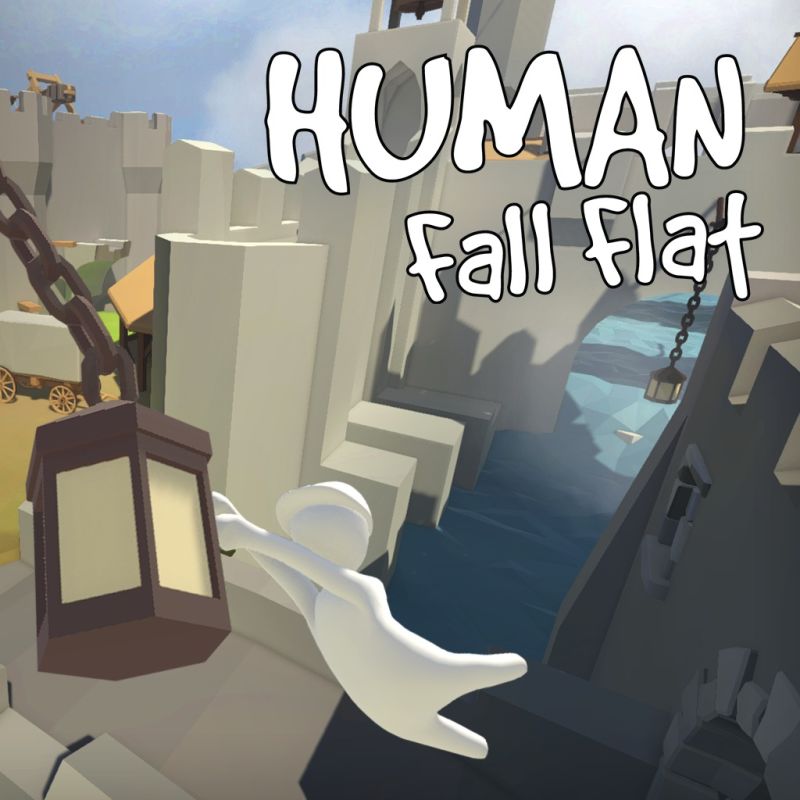
Human Fall Flat Font
Fonts in UseHuman: Fall Flat is a physics-based puzzle platformer video game developed by No Brakes Games. The game features open-ended levels where players control a wobbly humanoid character to solve puzzles and navigate through obstacles.
Good Dog Plain is the font utilized for the video game's logo, which is a playful and eccentric typeface crafted by Fonthead Design, featuring two variations - Plain and Cool. Both styles are downloadable for free here at FontGet.